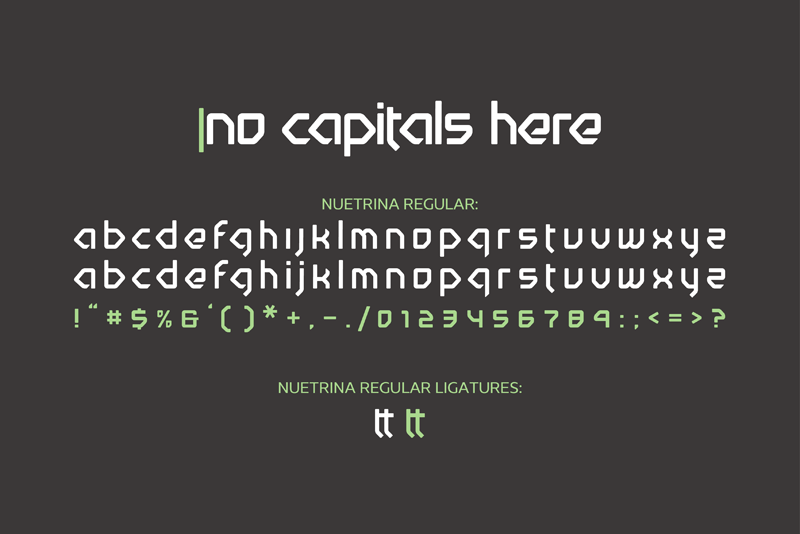
Font name: | Nuetrina |
Author: | Tension Type |
Note by Tension Type | |
The first characters from Neutrina came from a logo design I did for a client. It wasn�t chosen as the logo. Oh well. I decided to build out the entire alphabet. Before I knew it an entire display typeface was created. It�s lower case only. Sorry, no shouting with this one. Works well for logos, headlines and short passages of copy. Free to use for personal projects, one-time donation via PayPal for commercial projects. |